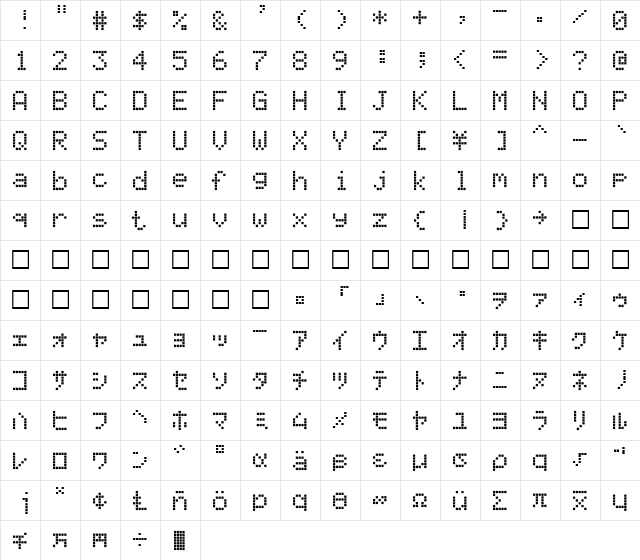
LCD5x8H Normal
LCD5x8H takes a measured approach to typography — its balanced proportions and neutral character make it a reliable workhorse for both digital and print work.